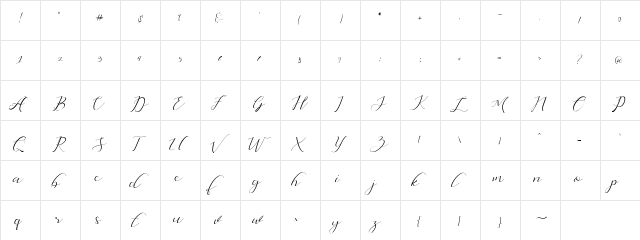
Dellisya Free For Personal Use Regular
Regular · Mas Anis Mas Anis ·
Foundry Mas Anis
FoundryMas Anis
DesignerMas Anis
Design Context for Dellisya Free For Personal Use Typeface
Dellisya Free For Personal Use is a composed and adaptable typeface that performs quietly and consistently across a wide range of design contexts.